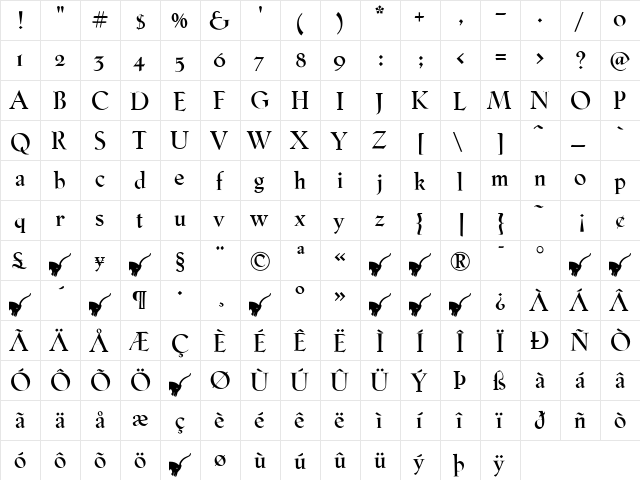
PhaistosBold Bold
| Foundry | Copr. The Font Bureau, Inc |
Design Context for PhaistosBold Typeface
PhaistosBold takes a measured approach to typography — its balanced proportions and neutral character make it a reliable workhorse for both digital and print work. Its bold stroke weight gives it real presence on the page.